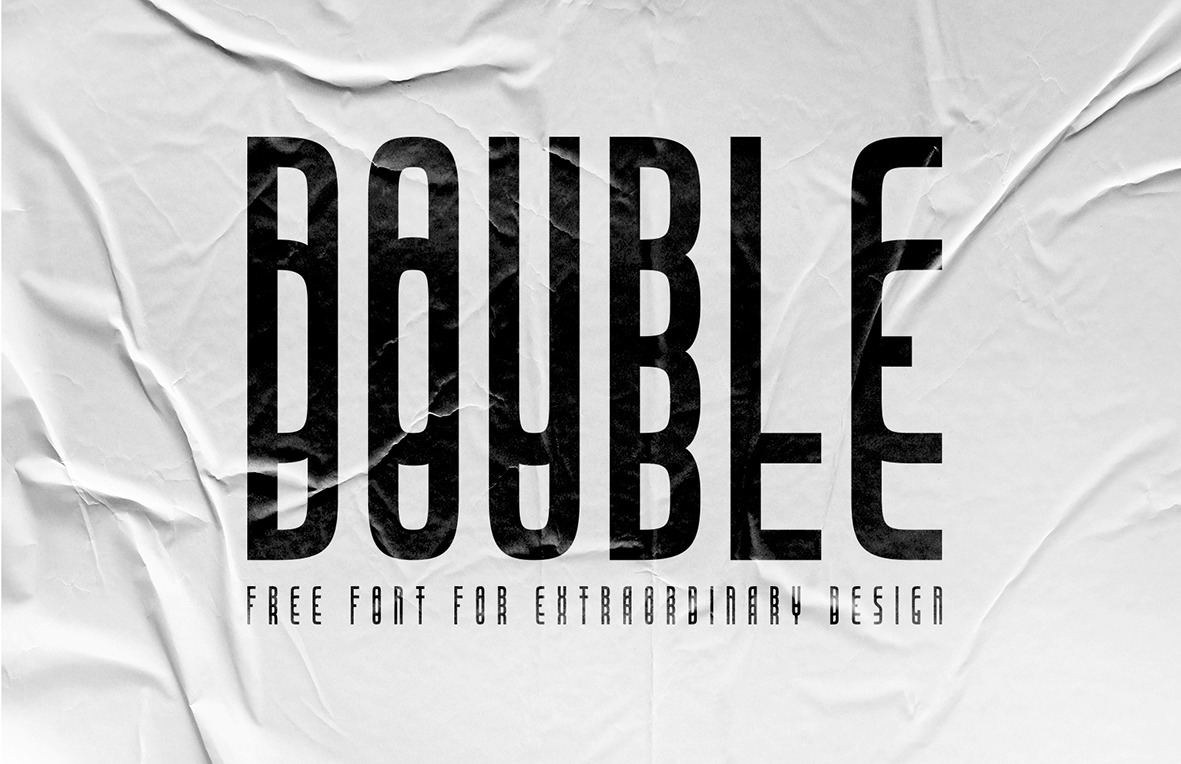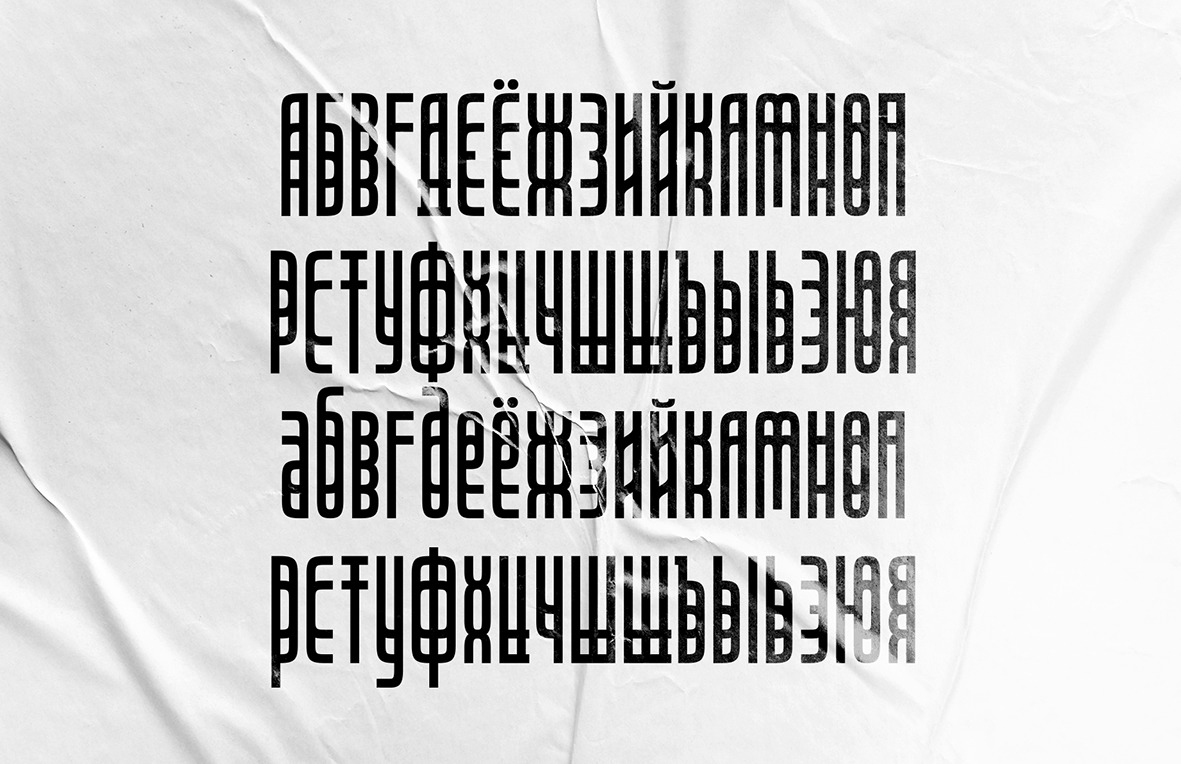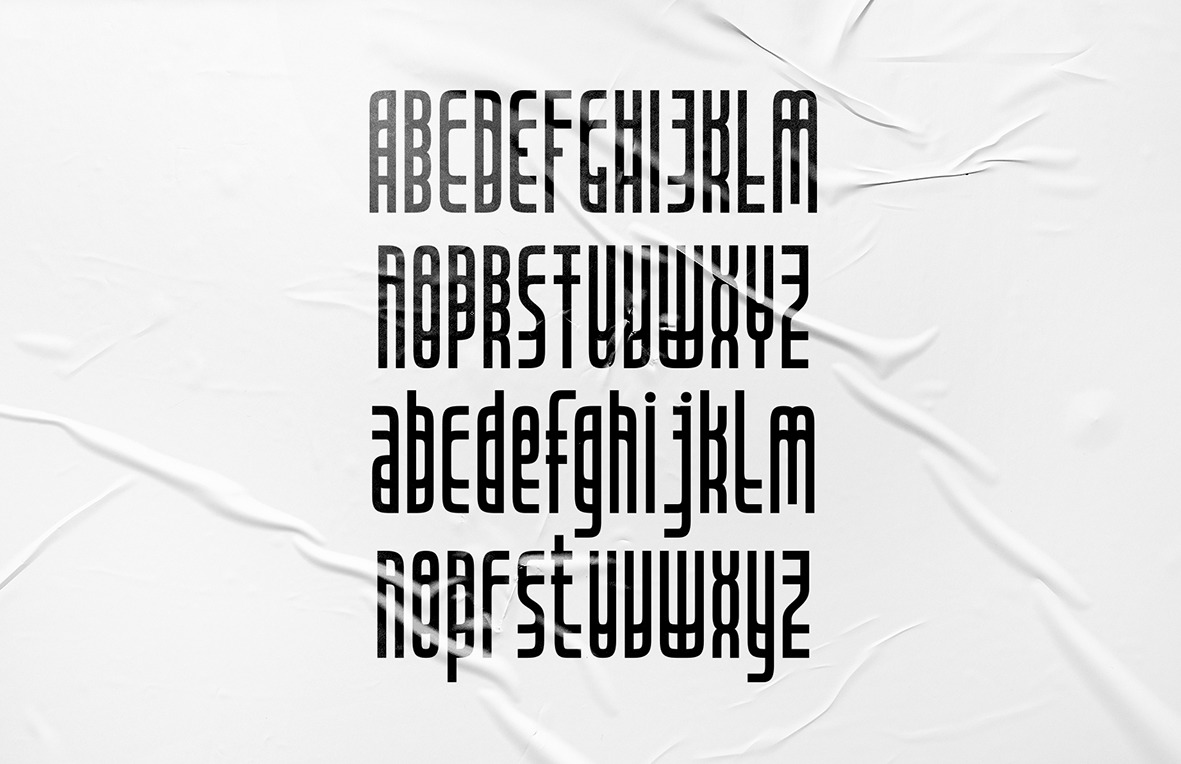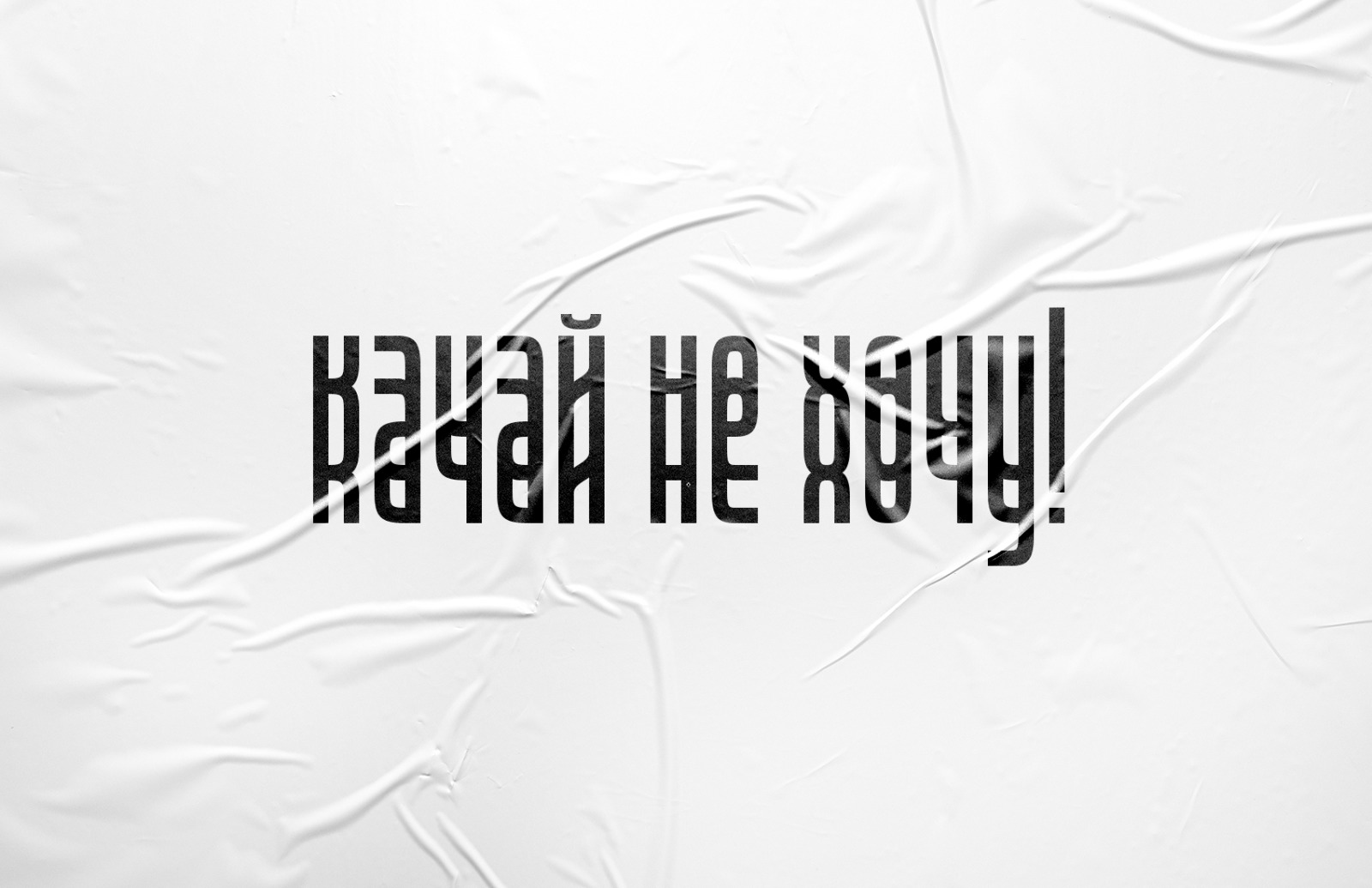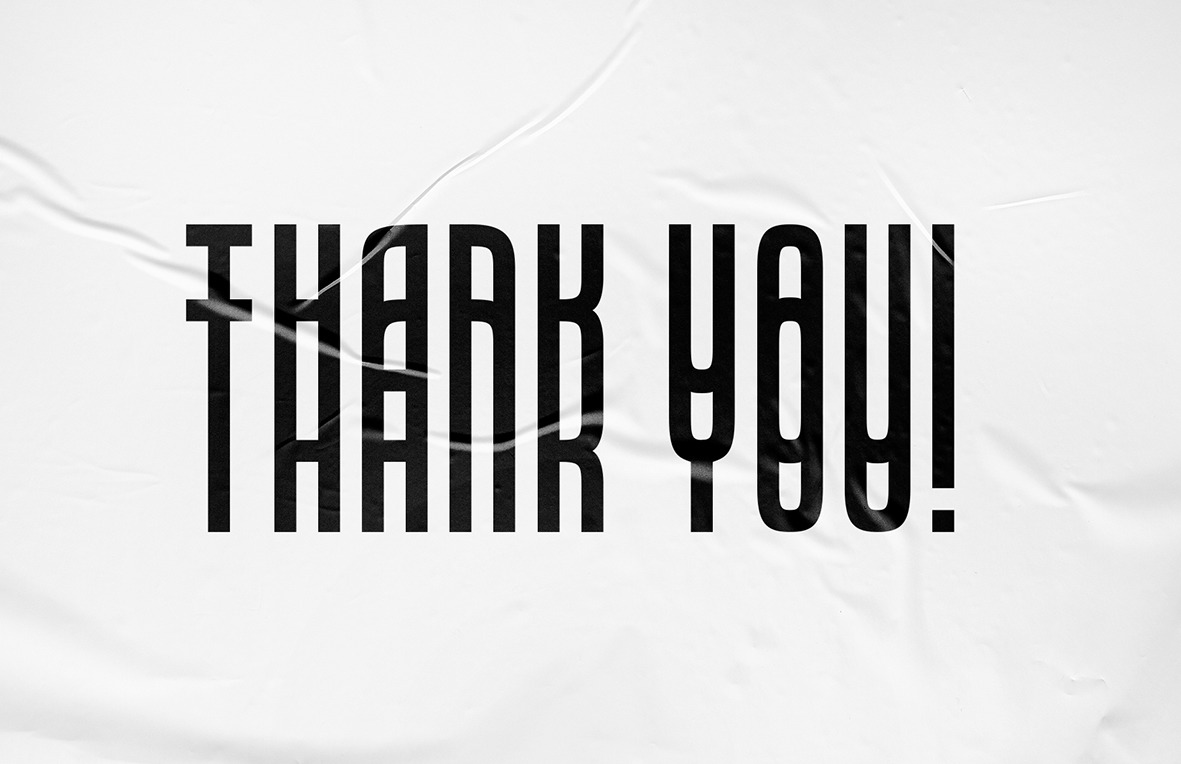
Double Font (Free)
Accidental and useless grotesque. This modular font was created during the training of font design in TypeType Education. Based on a glitch, scrapping, a game with perception, it will not leave you indifferent. Either you fall in love with him, or quickly close these pictures. Font is from St. Petersburg, with apathy and indifference.